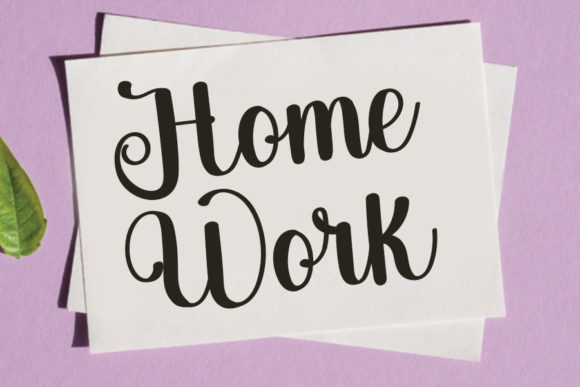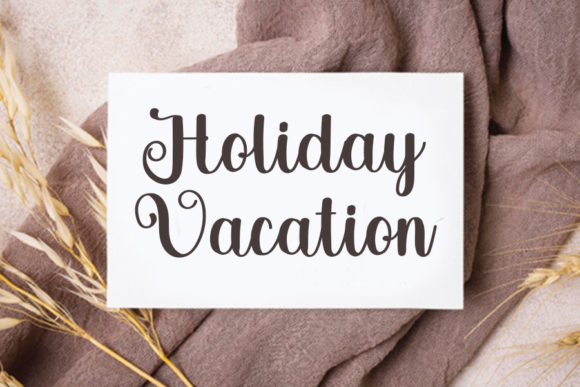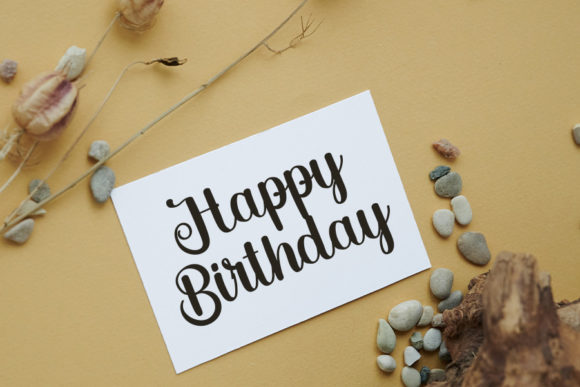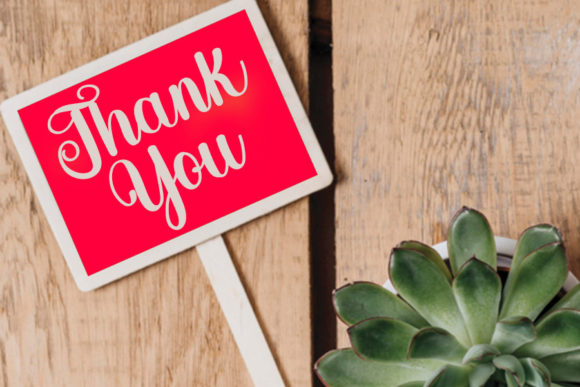
Introducing Creative Happiness Font: Elevate Your Designs with Elegance and Class
Are you a designer or crafter looking for a font that can add a touch of sophistication and refinement to your work? Look no further than Creative Happiness Font, a lovely and delicate script font that exudes elegance and class. In this article, we’ll explore the features and benefits of Creative Happiness Font, and how it can help take your designs to the next level.
What is Creative Happiness Font?
Creative Happiness Font is a beautifully crafted script font that is perfect for designers and crafters who want to add a touch of elegance and sophistication to their work. This font is particularly designed for those who need a beautiful and refreshing look to their designs, making it ideal for a wide range of projects, from wedding invitations and branding materials to social media graphics and more.
Key Features of Creative Happiness Font
- Delicate and Elegant Design: Creative Happiness Font features a delicate and elegant design that is perfect for creating sophisticated and refined designs.
- Script Font Style: This font is a script font, which means it features connected letters that create a flowing and natural look.
- High-Quality and Readable: Creative Happiness Font is designed to be highly readable, even at small sizes, making it perfect for use in a wide range of design projects.
- Multilingual Support: This font supports multiple languages, making it a great choice for designers who work with international clients or create content for a global audience.
Benefits of Using Creative Happiness Font
So why should you choose Creative Happiness Font for your design projects? Here are just a few benefits of using this beautiful font:
- Adds Elegance and Sophistication: Creative Happiness Font adds a touch of elegance and sophistication to any design project, making it perfect for high-end branding, wedding invitations, and more.
- Versatile and Flexible: This font is highly versatile and can be used in a wide range of design projects, from digital graphics to print materials.
- Easy to Read and Understand: Creative Happiness Font is highly readable, even at small sizes, making it perfect for use in designs where text needs to be clear and easy to read.
- Unique and Eye-Catching: This font is unique and eye-catching, making it perfect for designers who want to create designs that stand out from the crowd.
How to Use Creative Happiness Font in Your Designs
Using Creative Happiness Font in your designs is easy. Here are a few tips to get you started:
- Pair it with Other Fonts: Creative Happiness Font pairs well with other fonts, including sans-serif fonts and serif fonts. Experiment with different pairings to find the one that works best for your design.
- Use it for Headings and Titles: This font is perfect for use in headings and titles, where you want to add a touch of elegance and sophistication to your design.
- Experiment with Different Colors and Textures: Creative Happiness Font looks great in a variety of colors and textures. Experiment with different options to find the one that works best for your design.
In conclusion, Creative Happiness Font is a beautiful and elegant script font that is perfect for designers and crafters who want to add a touch of sophistication and refinement to their work. With its delicate design, high-quality and readable text, and multilingual support, this font is highly versatile and can be used in a wide range of design projects. Whether you’re creating wedding invitations, branding materials, or social media graphics, Creative Happiness Font is a great choice. So why not give it a try and see how it can elevate your designs to the next level?